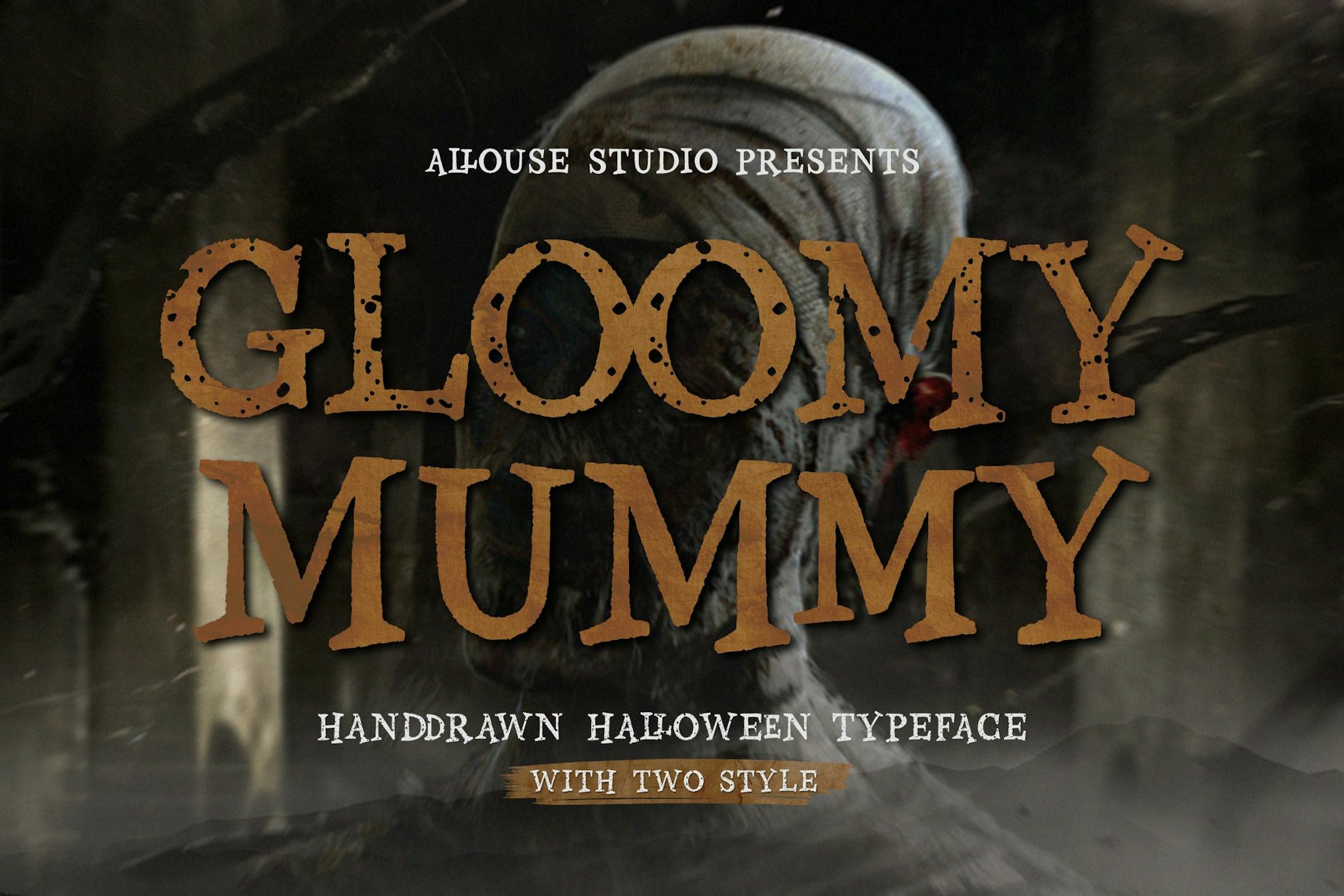
AL - Gloomy Mummy Font
Perfect for horror-themed designs, Halloween projects, posters, book covers, logos, and eerie digital content.
The AL - Gloomy Mummy Font excites designers with its spooky, textured look that captures the mysterious and ancient vibe of wrapped mummies, bringing a chilling atmosphere to any design.
Font families: AL - Gloomy Mummy Regular, AL - Gloomy Mummy Bold.
The AL - Gloomy Mummy Font Free Download is a uniquely crafted typeface designed to add dark, haunting character to your creative projects. Its rough, textured edges resemble ancient wrappings, perfect for Halloween, horror stories, and gothic branding. Whether you’re designing posters, book covers, or themed social media graphics, Gloomy Mummy sets the perfect eerie tone.
One of the key strengths of AL - Gloomy Mummy Font is its ability to balance readability with a creepy, distressed style. It stands out in headlines and display text, ensuring your message conveys both fear and intrigue.
In branding, Gloomy Mummy conveys mystery, suspense, and creativity. It pairs excellently with dark color palettes, textured backgrounds, and spooky imagery, helping brands build a memorable and haunting identity.
For digital projects, this font enhances website headers, Halloween campaign visuals, social media posts, and horror-themed digital marketing materials with its chilling style. Its unique character ensures your digital presence grabs attention with spooky flair.